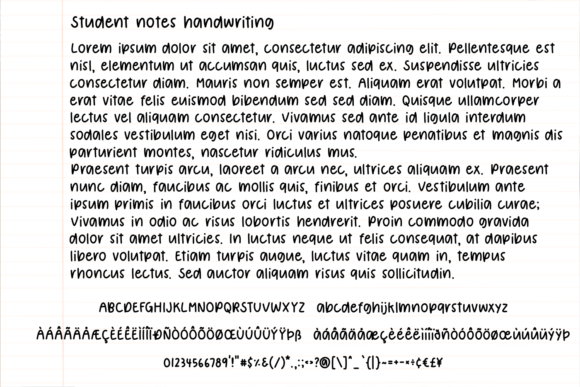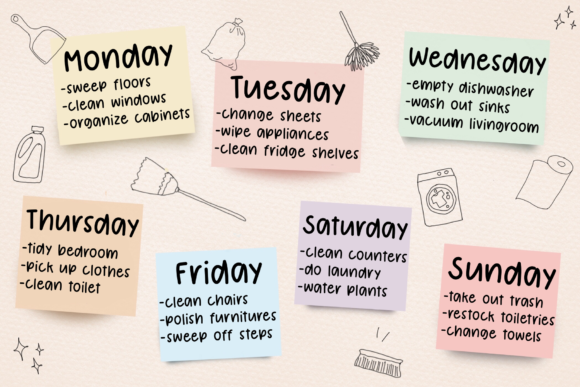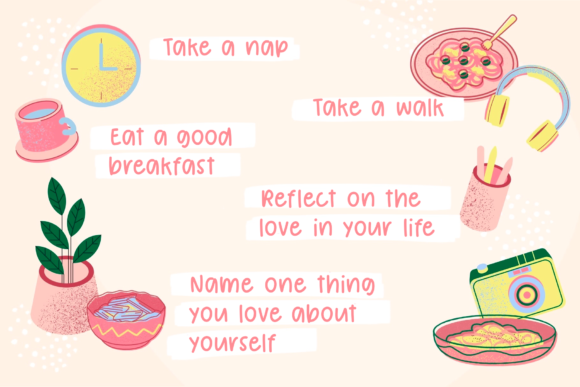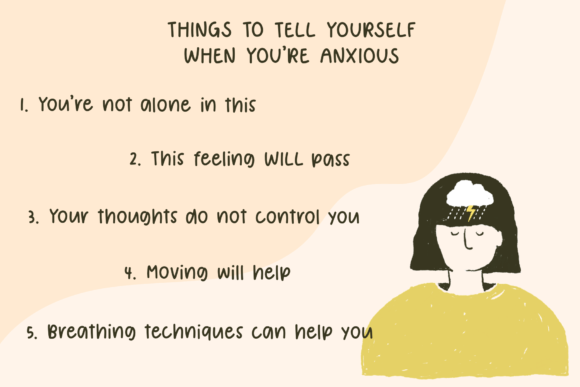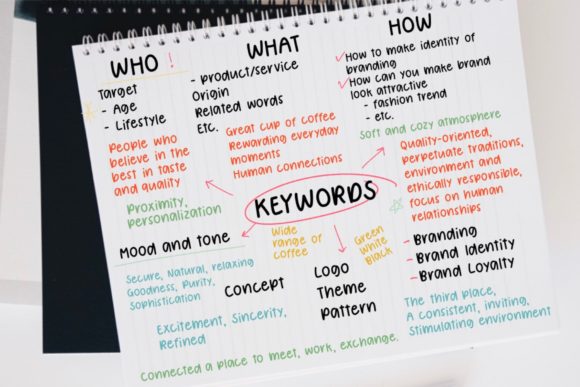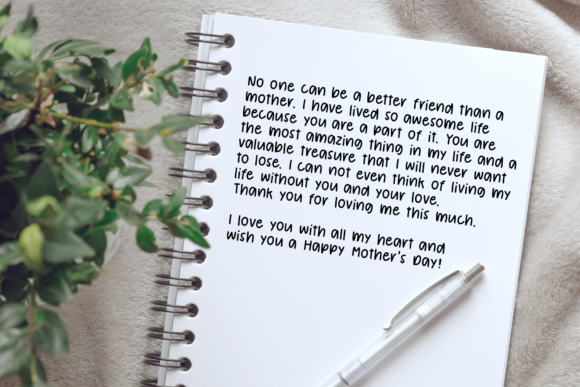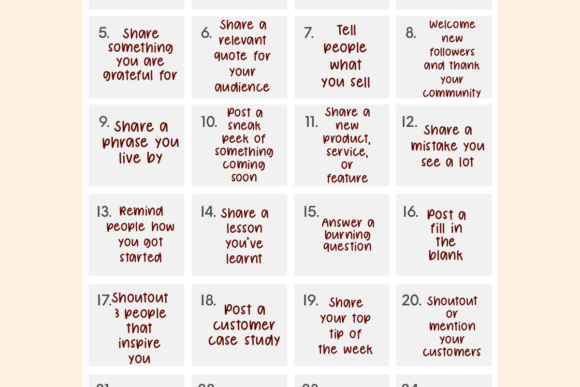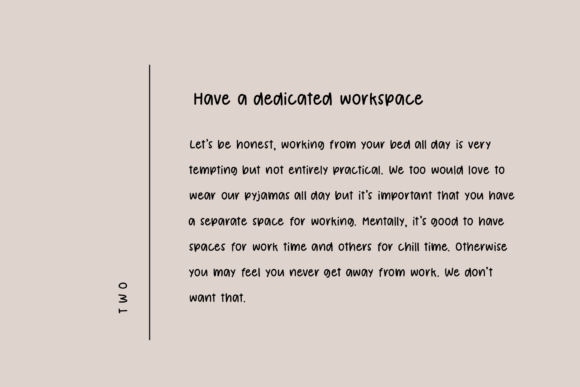
Student Notes Font
About Student Notes Font
Student Notes is a clean and simple handwritten font that can be used for all chalkboard quotes or teaching material! Its authentic look and feel will add a personal and realistic feel to your designs.